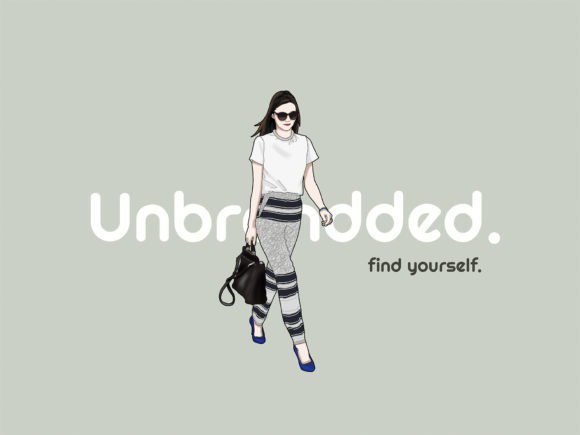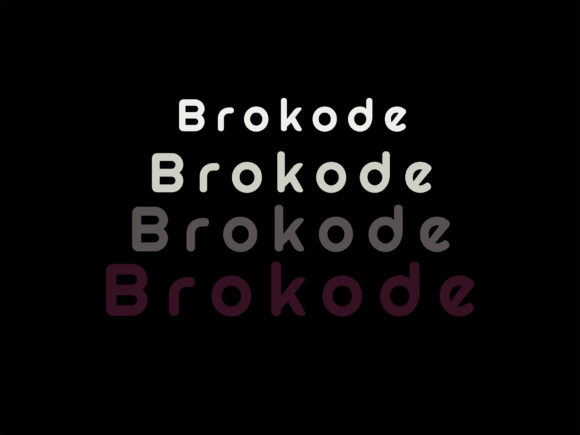
Brokode Modern Typeface Font
Brokode is a modern and neat sans serif font. It can easily be matched to an incredibly large set of projects, so add it to your creative ideas and notice how it makes them stand out!